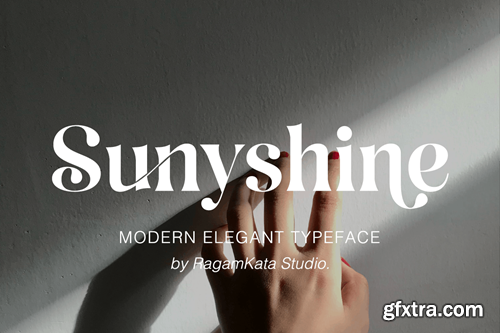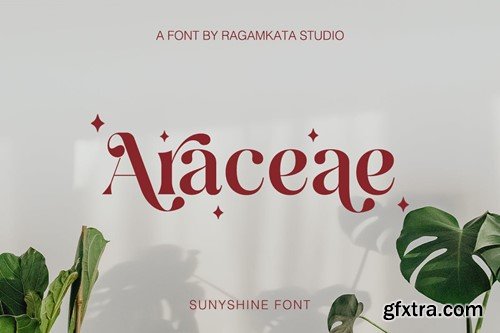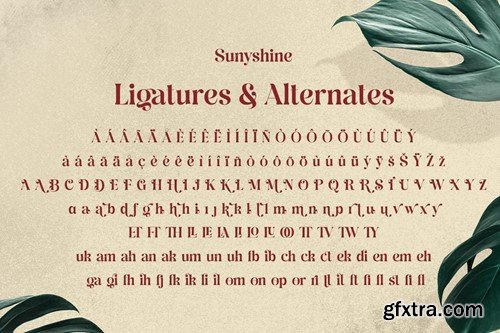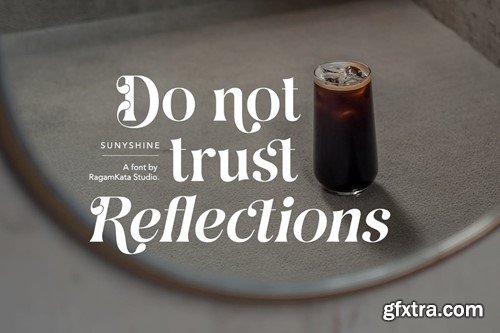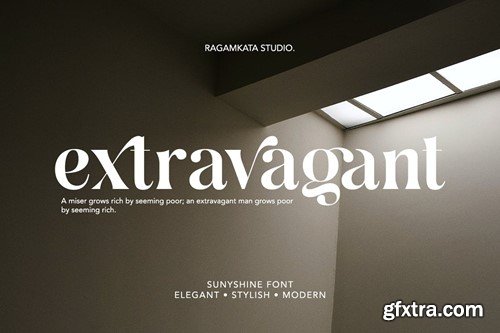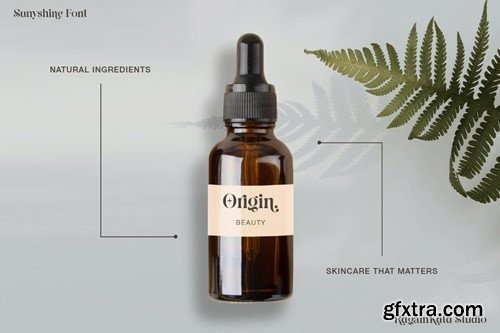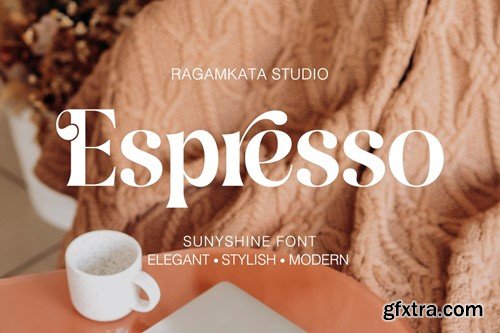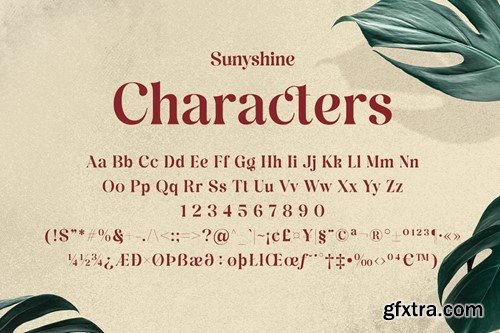
Sunyshine - Modern Elegant Typeface
Sunyshine, an elegant and stylish font that will light up your project. A graceful typeface, with a perfect shape and ligatures will make your design look graceful. This typeface is a perfect for a luxury logo, classy editorial designs, fashion brand and promotion, and much more. Get sunyshine to make your design fine as wine.
Sunyshine font will also include some features :
• Ligatures & Alternates
• Letters, numbers, symbols, and punctuation
• Multilingual Support